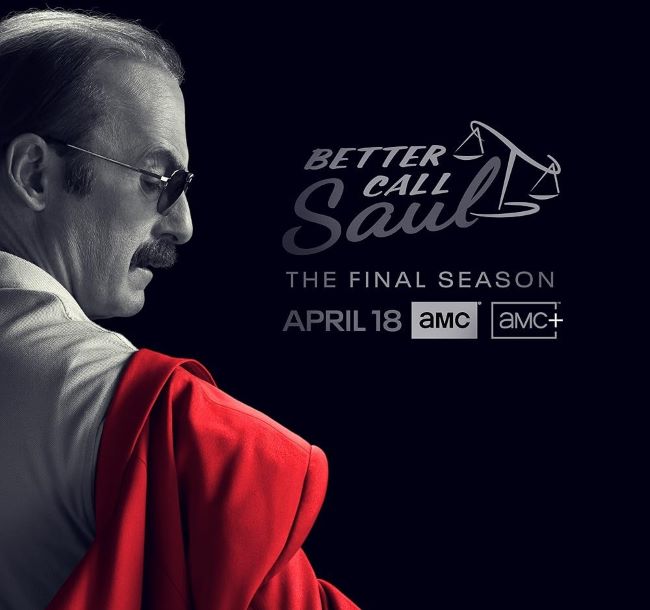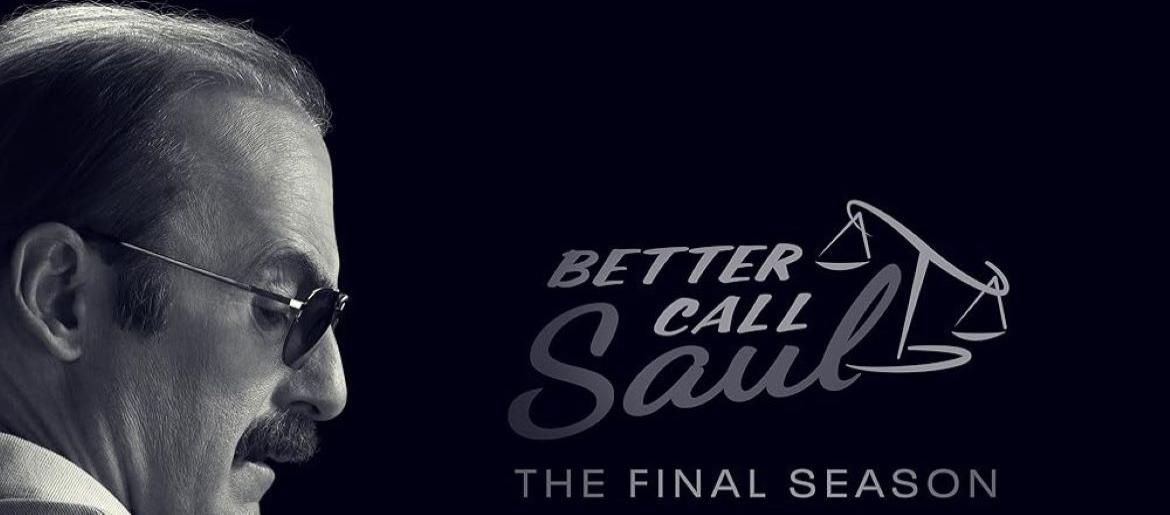
Better Call Saul Font
The Better Call Saul Font is stylish, bold, and full of personality—much like Saul Goodman himself. With its mix of handwritten script and clean sans-serif lettering, it delivers a playful yet professional look that perfectly reflects the dual nature of Jimmy McGill’s character. The bright, retro-inspired colors often associated with the design add an eye-catching flair, reinforcing the show’s blend of humor, drama, and charisma.
Its expressive style makes the Better Call Saul font perfect for fan artwork, posters, or any design channeling the charm and chaos of Albuquerque’s most unpredictable lawyer.
About Better Call Saul
Better Call Saul premiered in 2015 as a prequel to Breaking Bad, following Jimmy McGill’s evolution into Saul Goodman. The series explores ambition, morality, and identity through deep character development and masterful storytelling, earning widespread critical acclaim as one of television’s finest dramas.